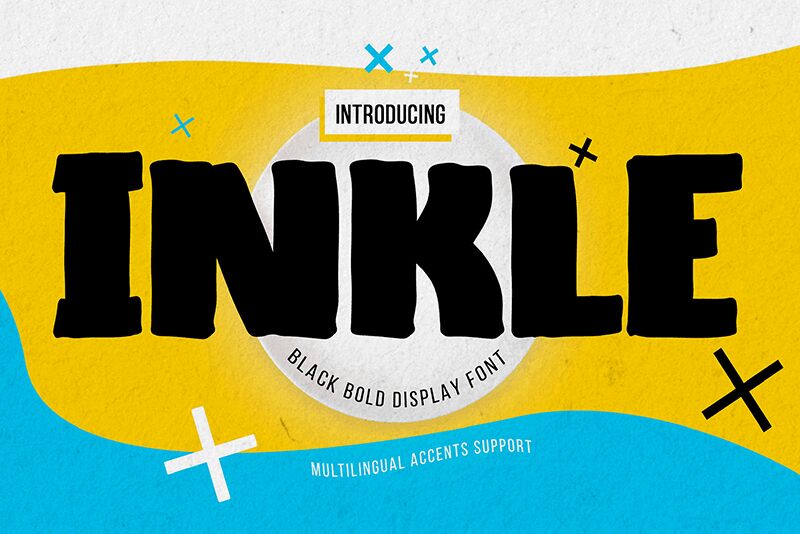
Inkle
Inkle by Gassstype bursts onto the creative scene with an unwavering presence, its semi-light yet bold display characteristics embodied within each cartoon-inspired character. This font exudes an authentic style paired with dramatic movement, capturing the essence of casual and rapid penmanship. Ideal for a vast array of projects, Inkle's playful allure transforms modern designs into works that are both authentic and fun.
The versatility of Inkle shines in applications such as eye-catching labels, vibrant posters, and eclectic branding. Its suitability extends to personalizing greeting cards, packaging designs, and digital overlays that require a touch of whimsy. Moreover, its unique strong character adds a more natural feel to your creations.
Unlock Inkle's full potential with Alternate glyphs available via the OpenType panel-an invitation to explore a world where type meets playful artistry. Whether it’s scrapbooking or signage that calls for a distinctive touch, Inkle is poised to make your project stand out with charm and spirited elegance.